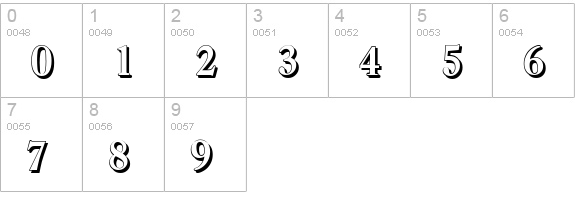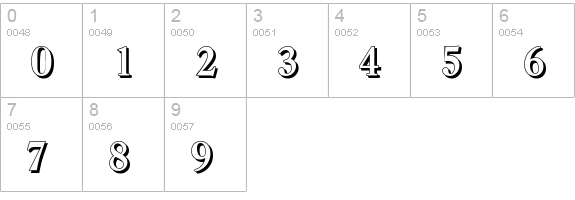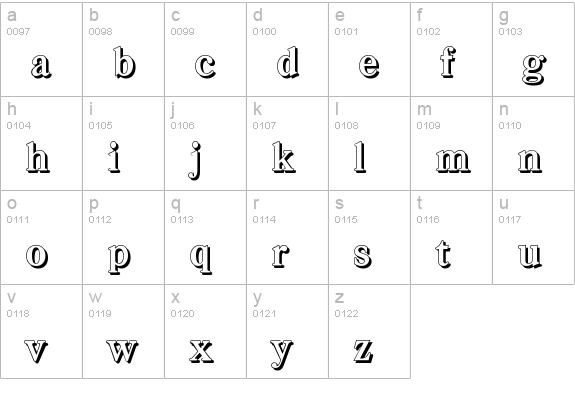
CasadShadow-Bold Font Details
CasadShadow-Bold is a strong, high-contrast variant in the CasadShadow typeface family \xE2\x80\x94 well suited to headlines, attention-grabbing titles, and strong calls-to-action.
CasadShadow-Bold font is a modern and bold typeface that exudes confidence and sophistication. With its sharp edges and strong presence, this font is perfect for making a bold statement in headlines, logos, and branding materials. The thick strokes and unique shadow effect add a touch of drama and elegance to any design. What makes CasadShadow-Bold font even more appealing is that it is completely free to download at FontsMarket.com. This means you can easily access this stunning font and use it in your projects without any cost. Whether you're a designer looking to add a touch of boldness to your work or a business owner wanting to make a strong visual impact, CasadShadow-Bold font is the perfect choice. Download it today and elevate your designs with this versatile and eye-catching typeface.